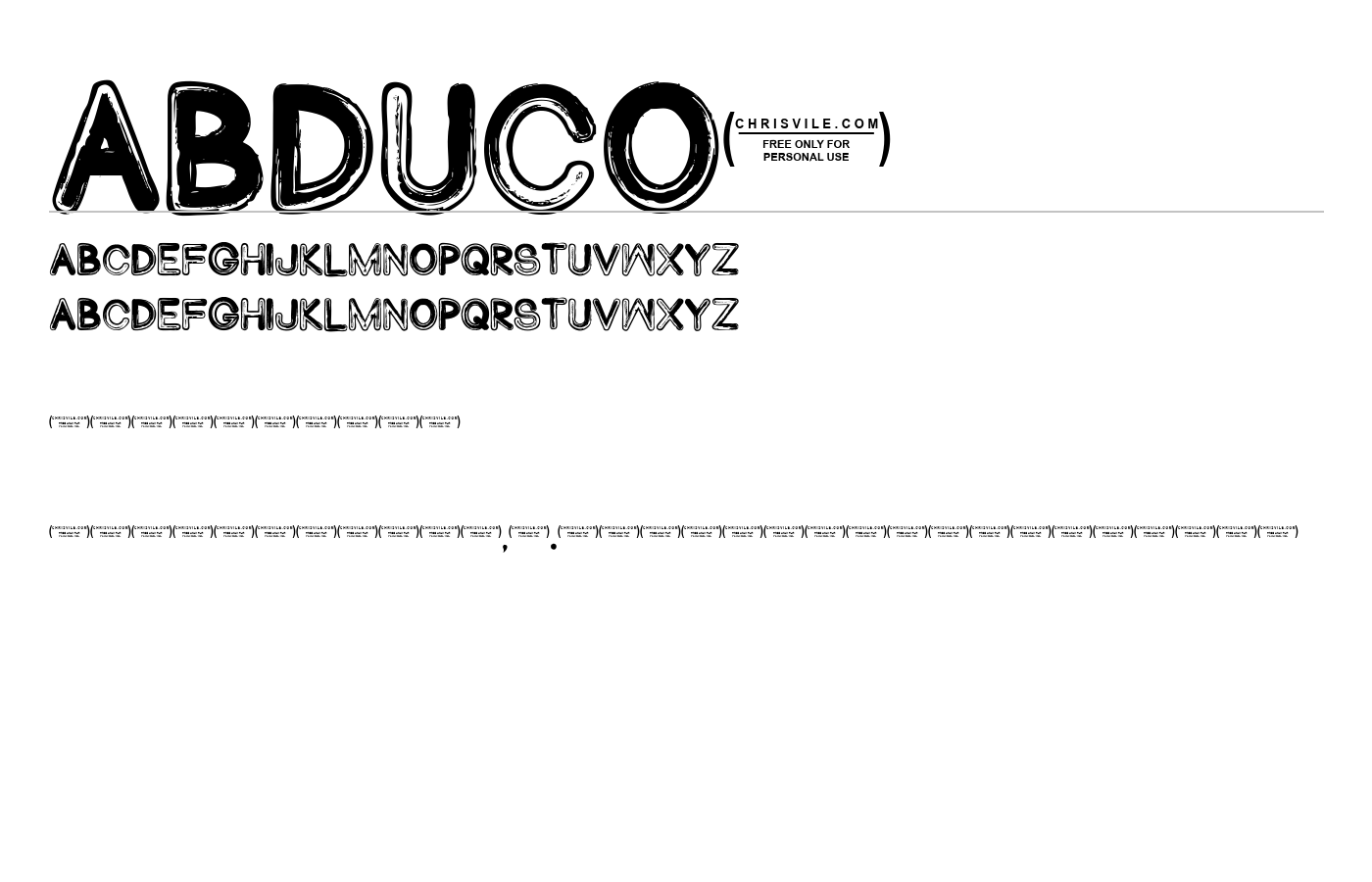
Abduco is a playful, hand-drawn sans serif font characterized by its bold and rough textured strokes, giving it a casual and creative feel. With its tall, rounded letterforms and uneven edges, it works well for fun, informal designs like posters, children’s books, and creative branding, adding a lively and approachable personality to any project.
Abduco Font
About Abduco Font